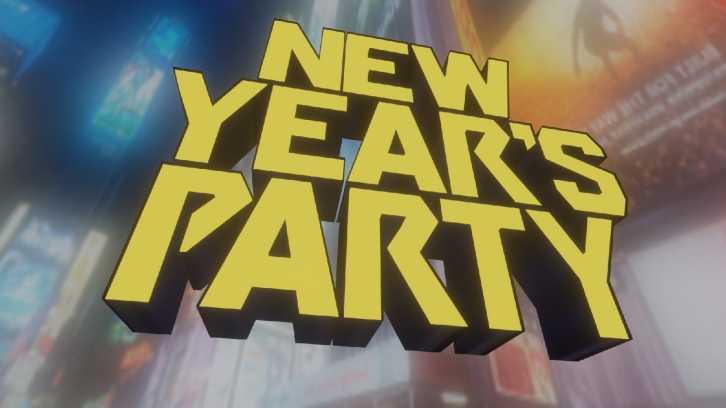
With 2020 wrapping up I decided to do one last festive font before going into 2021. This font was based off of the numbers of next year sitting above Times Square. (right above the Toshiba logo to be specific). Contains letters, numbers, and some essential punctuation.